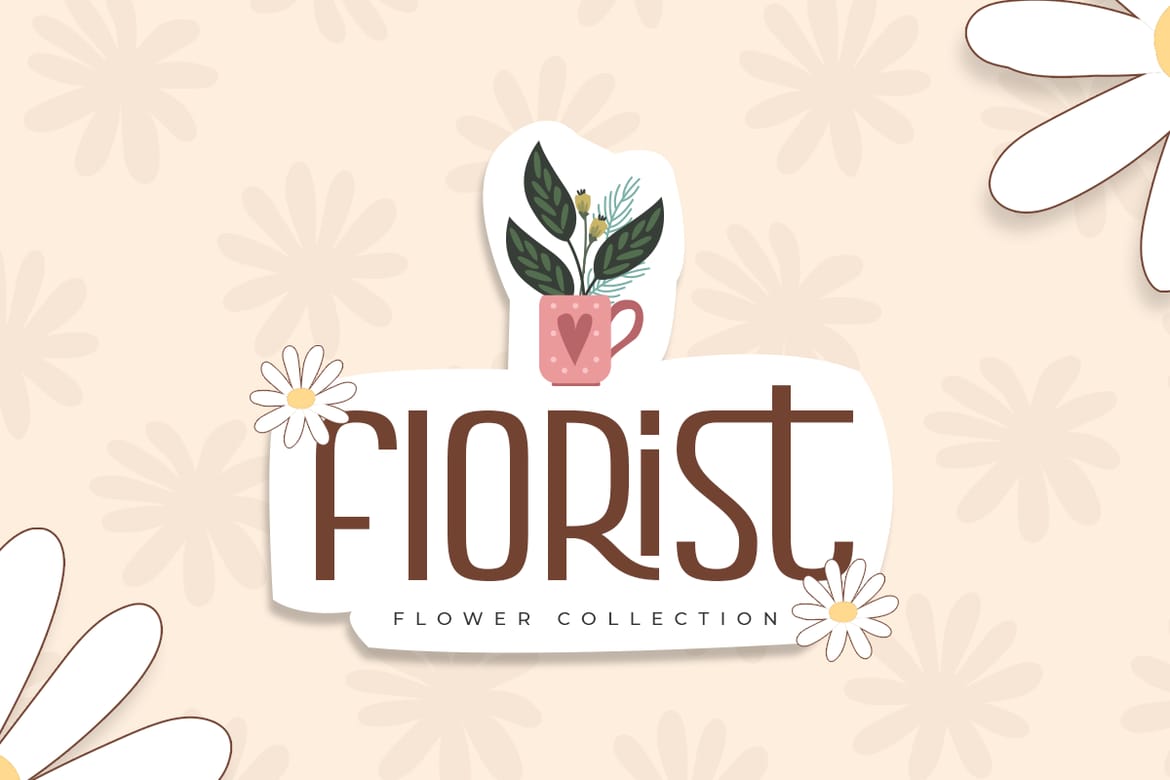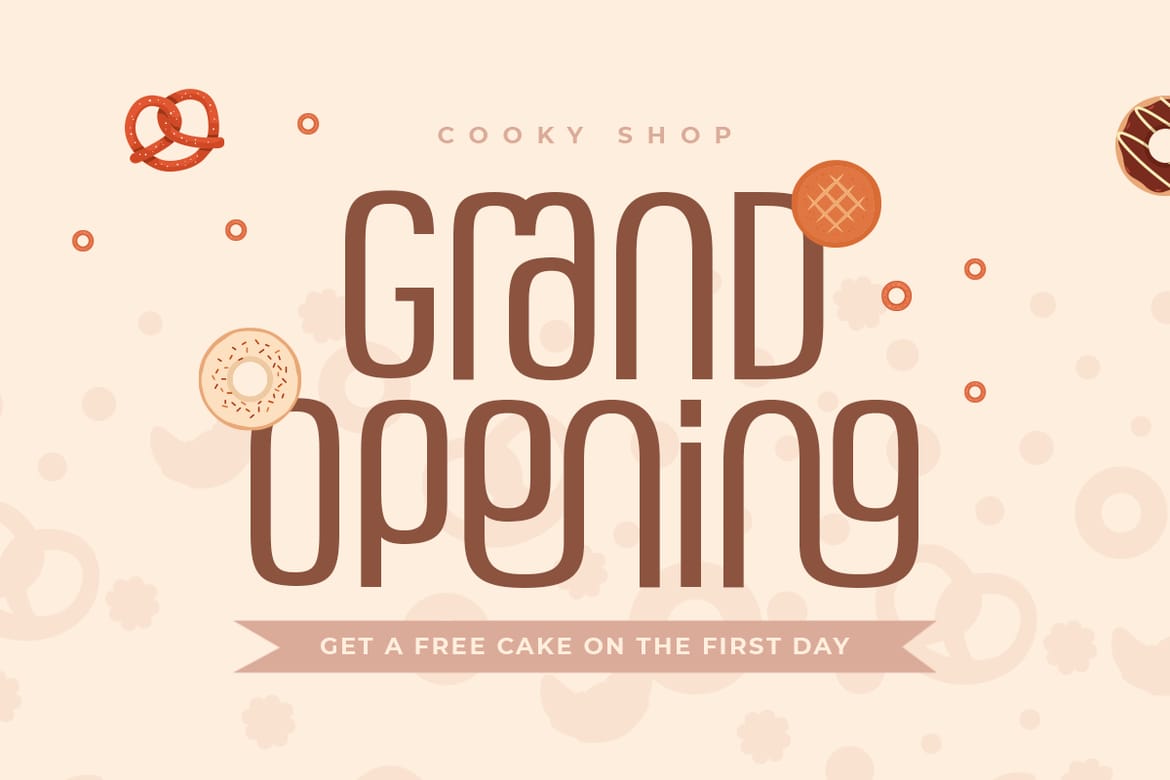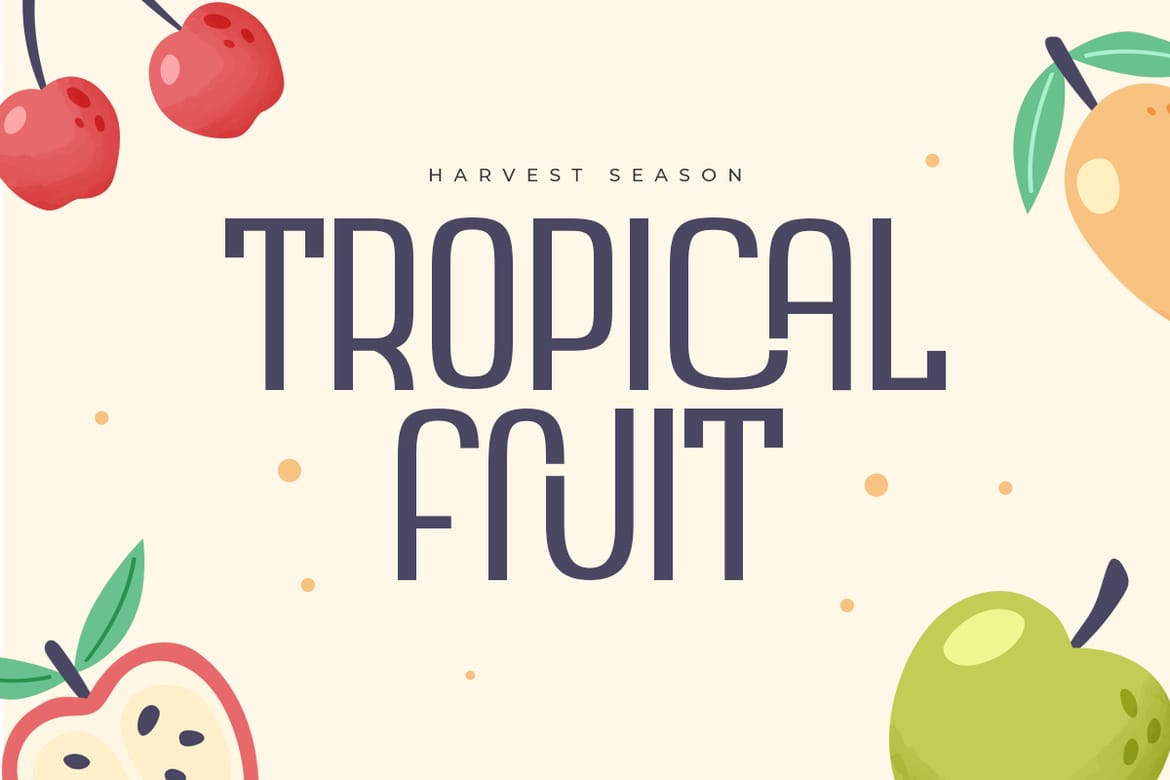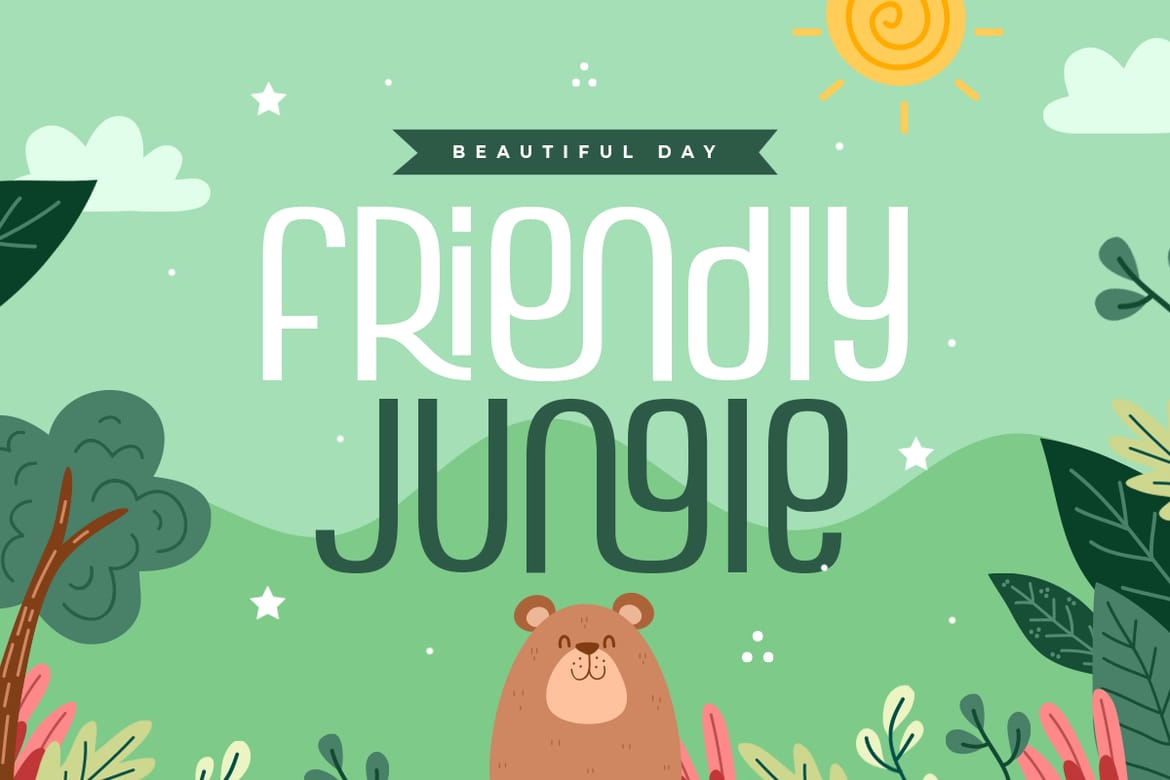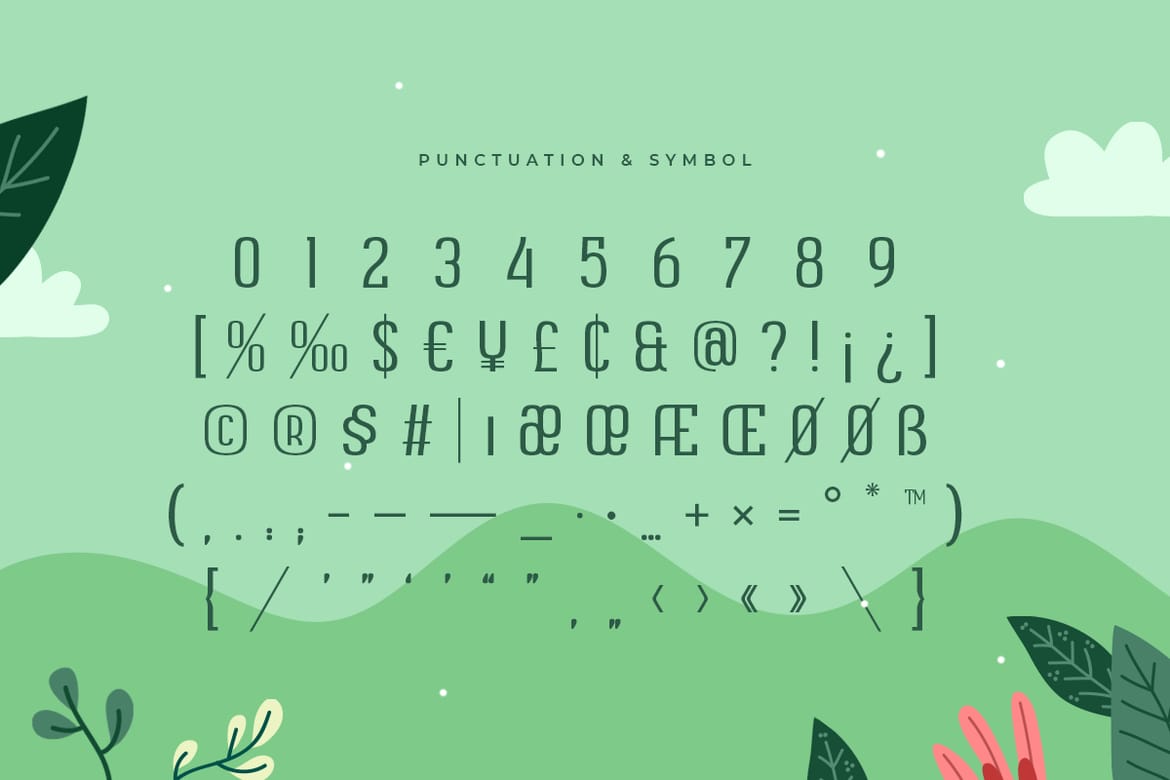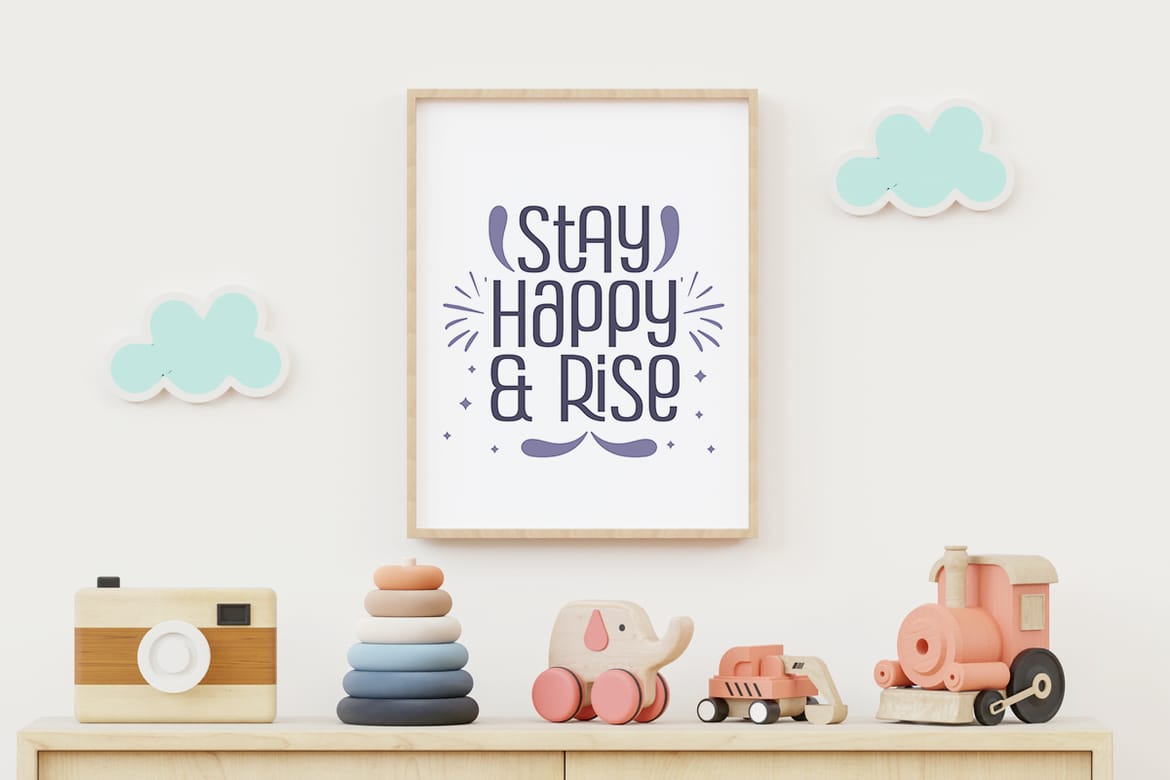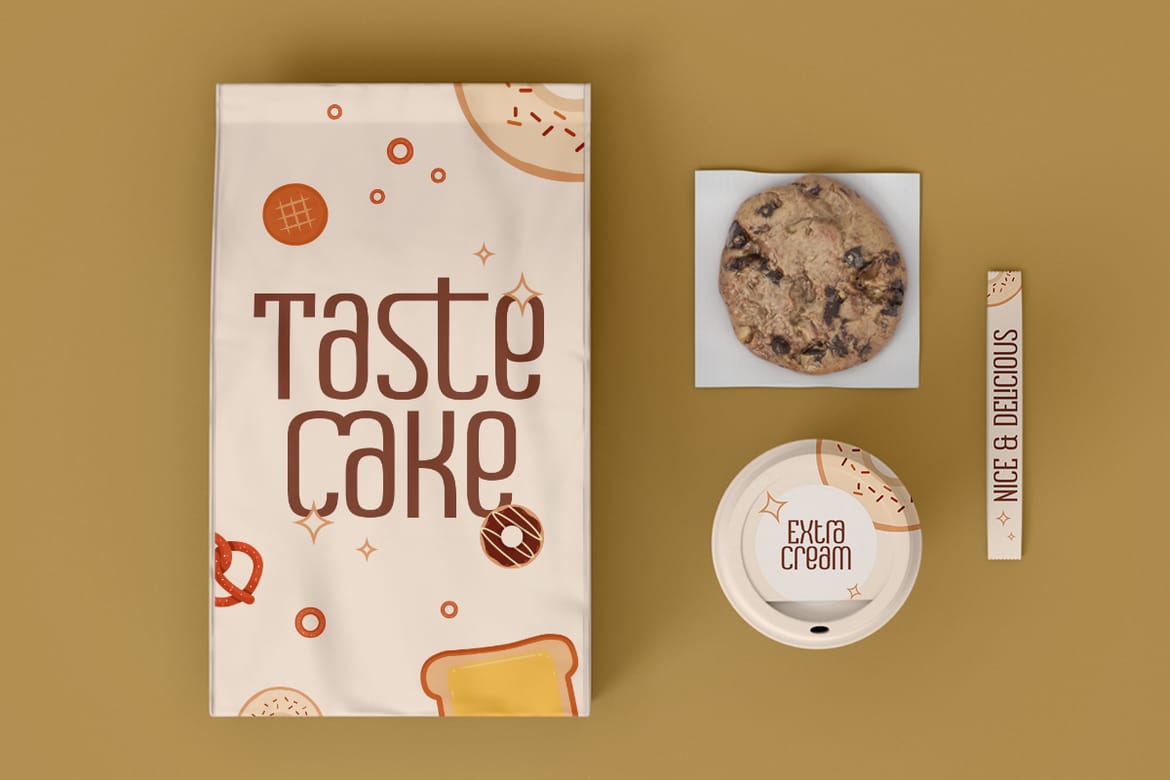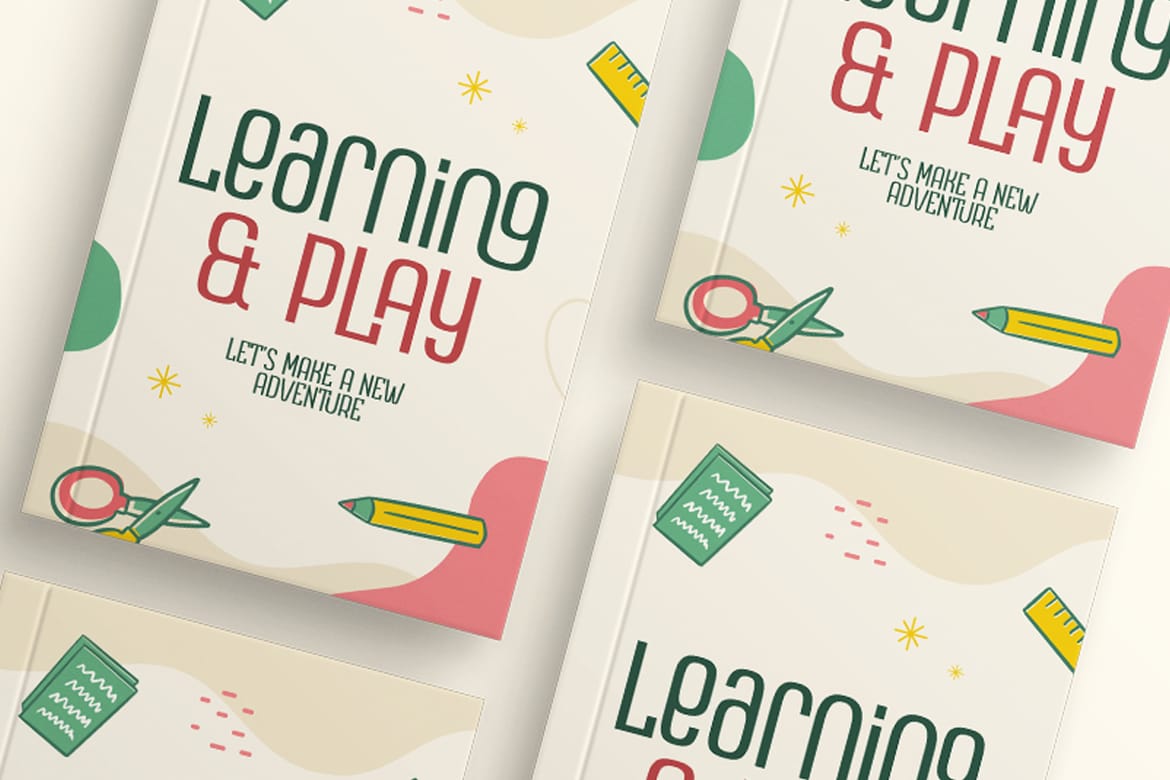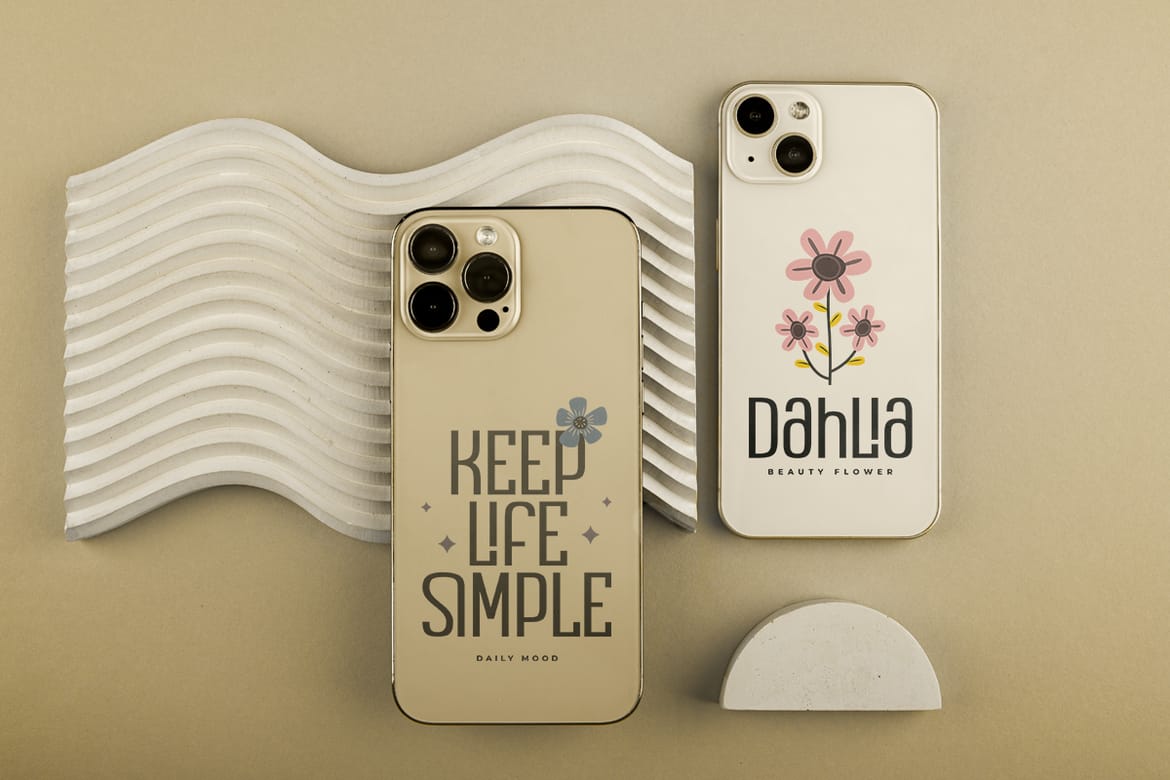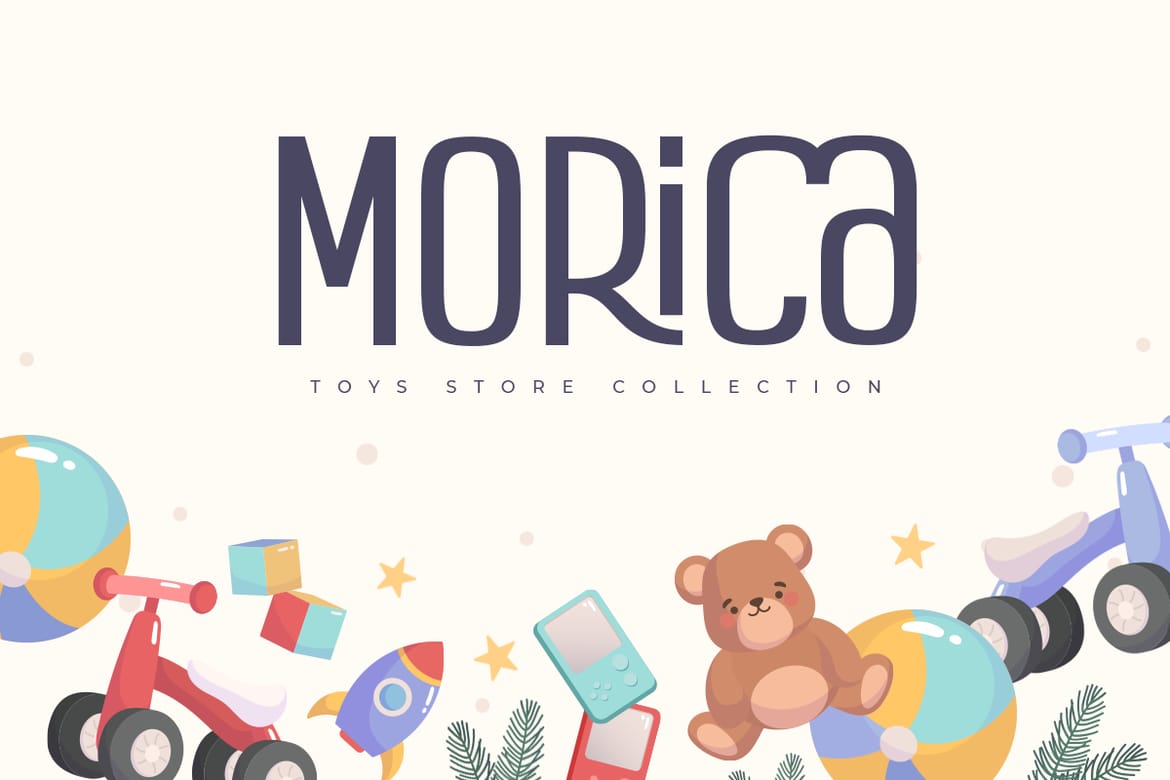
A Modern Ligature Fancy Font that we created special for Funny, Cute and Children branding needs, with extra ligature characters in unique shape will be ready to add value of your brand. It so nice to leverage designer or product owner that need solutions to make their design look more classy and modern. And specially for this font, We prepared any alternate characters to help you create unlimited variations for your creative needs.
Slapstick Modern Ligature Fancy Font ready with:
Any options to get creative variations (combination of Any Ligatures)
Preview as a inspirations that you can do with Slapstick font
Ready with Lowercase and Uppercase characters
- Fun kids ligature fancy font
- Unlimited alternate character variations